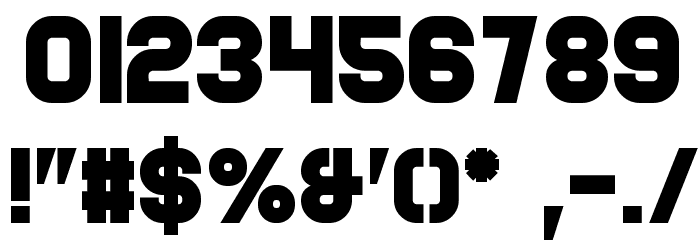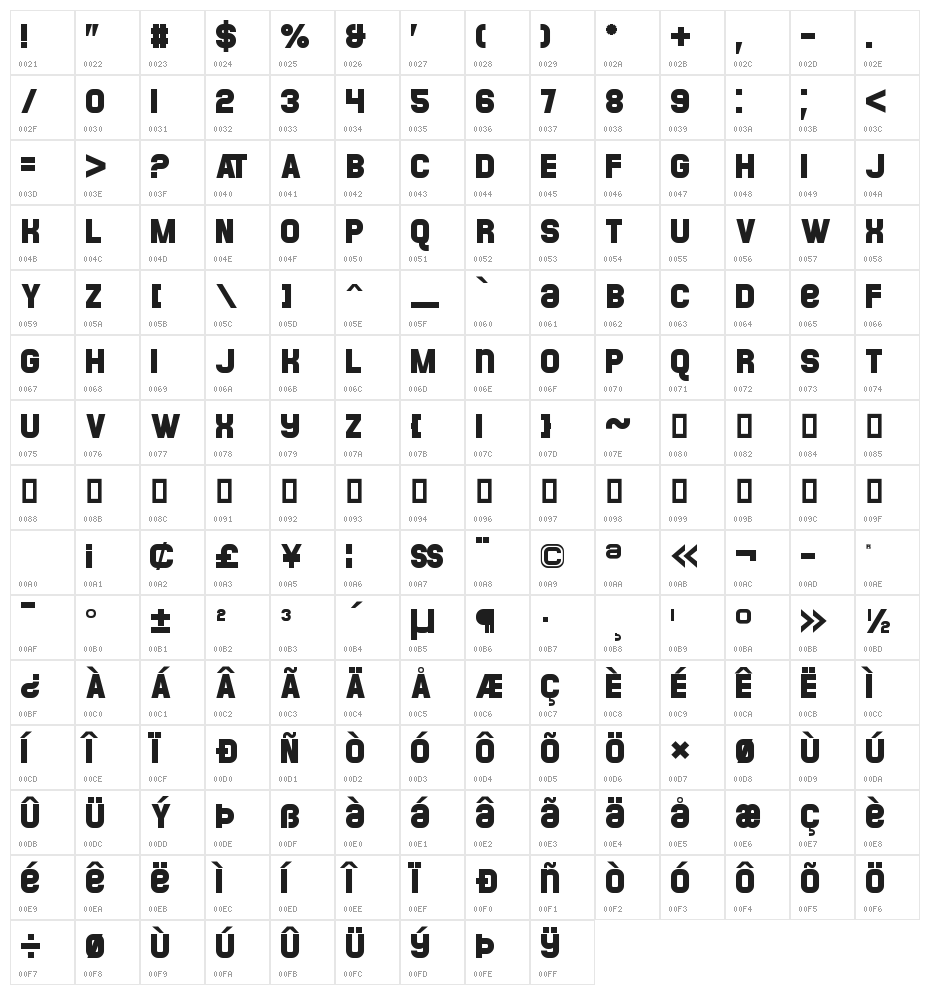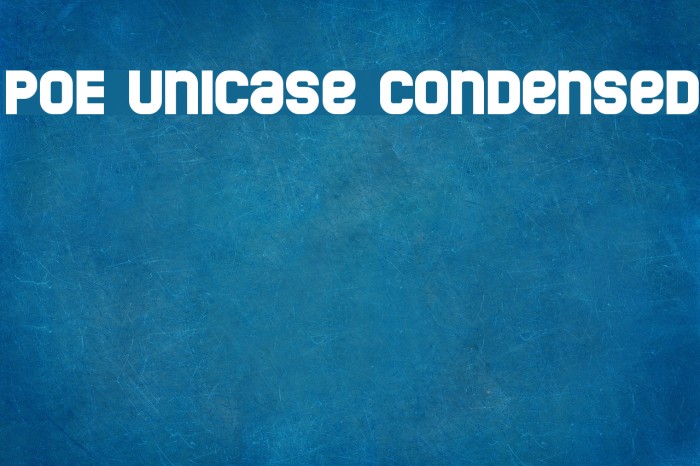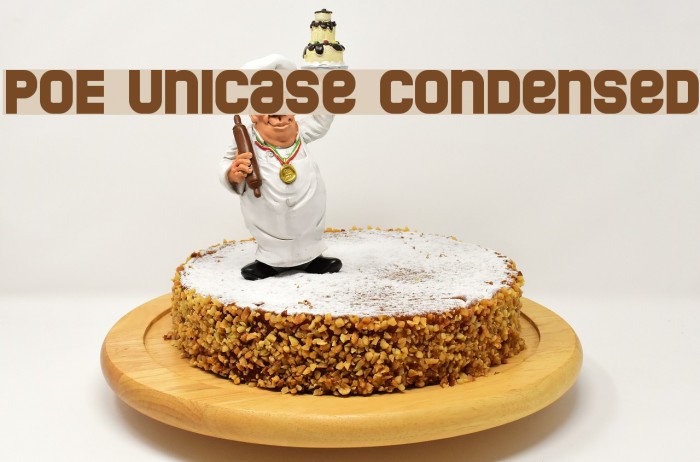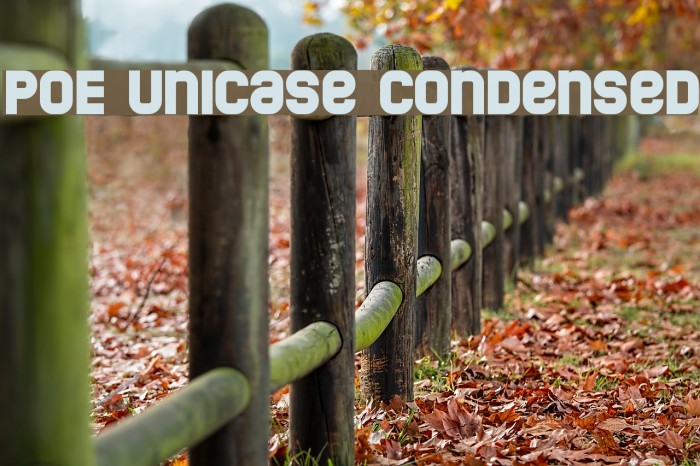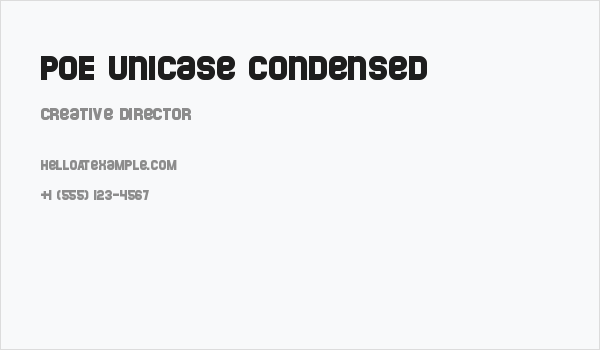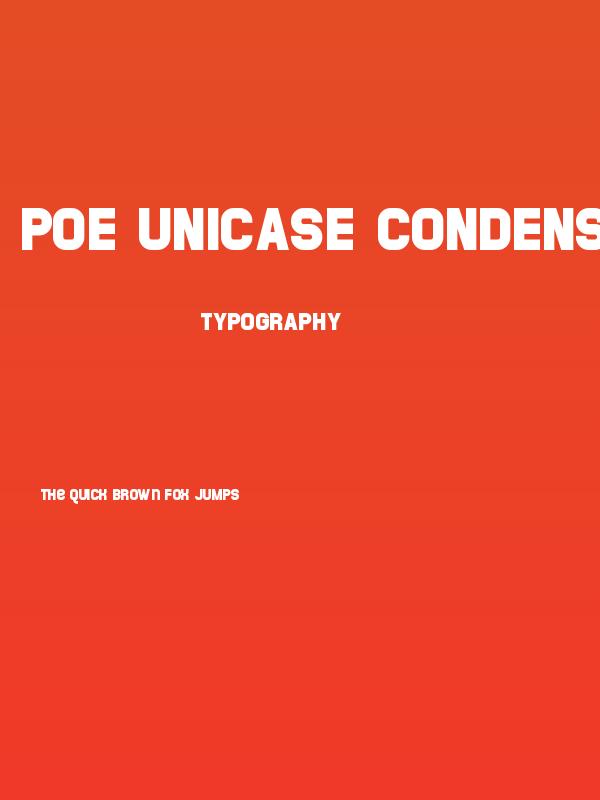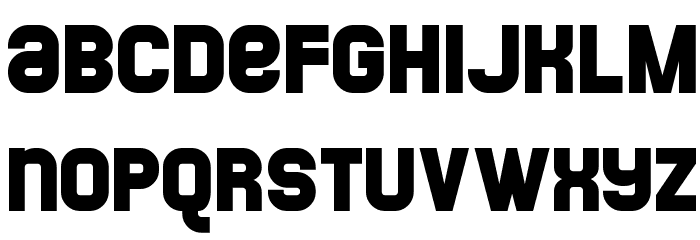
POE Unicase Condensed Font
POE Unicase Condensed Description
This font features a bold and condensed style with a strong geometric structure. The uppercase and lowercase letters share a similar height, creating a unicase effect that enhances its modern appeal. The characters are tightly spaced, contributing to its compact and impactful appearance. The strokes are uniform in thickness, providing a low contrast that emphasizes its boldness. The font includes a full set of numerals and a variety of special characters, making it versatile for different design needs.